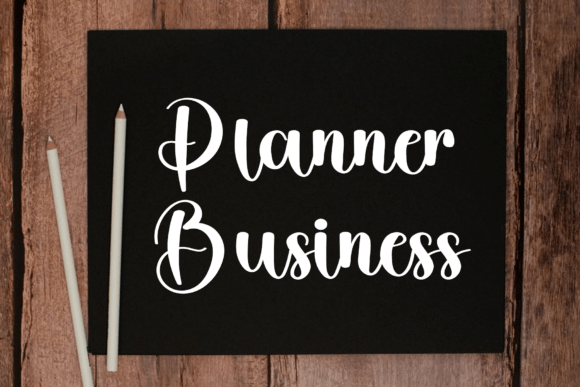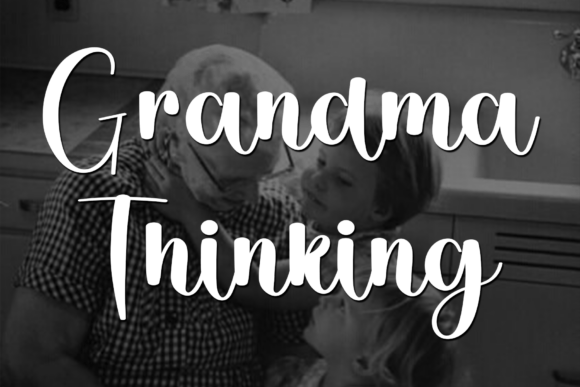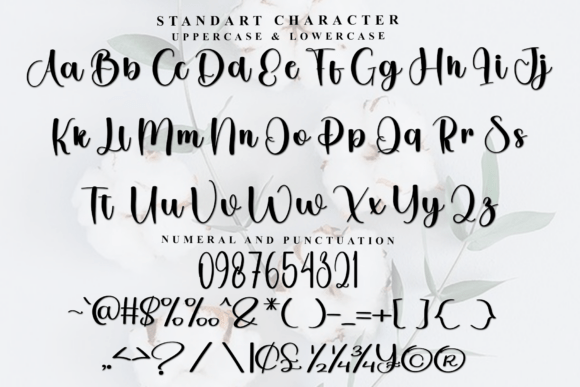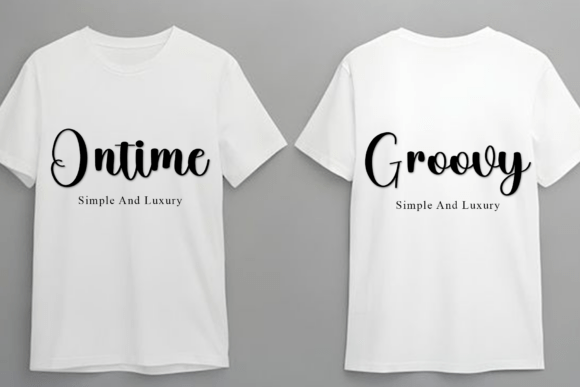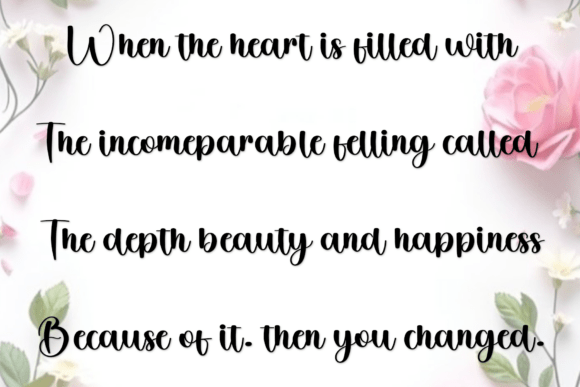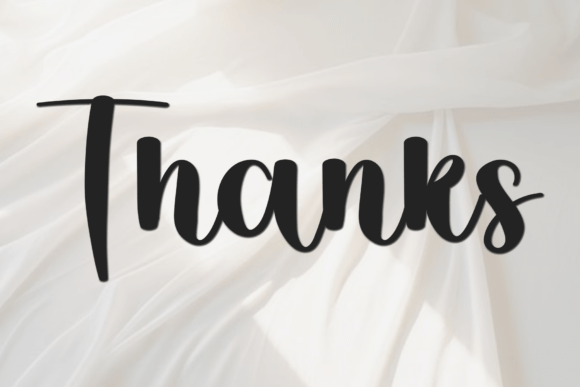
Introduction to Daisy Anything Font
As I sat down to work on my holiday design project, I knew I needed a font that would capture the essence of the season. With a cup of hot cocoa by my side, I began browsing through my design resources, searching for the perfect typeface to add a touch of magic to my words. That’s when I stumbled upon the enchanting Daisy Anything Font – a festive and merry typeface that perfectly embodies the spirit of the holiday season.
With its whimsical flair and decorative elements, the Daisy Anything Font is a game-changer for designers who want to add a personal touch to their creative projects. Whether you’re working on a greeting card, gift tag, or holiday-themed project, this font brings a cheerful and nostalgic ambiance to your words, making it a valuable addition to any design resource.
- High-quality design resource ideal for creative projects, offering a unique and playful touch.
- Designed with a modern aesthetic, making it suitable for a variety of creative projects, from digital art to print materials.
Honest Review: Daisy Anything Font
I recently stumbled upon the Daisy Anything Font while searching for a unique design resource for a creative project. After giving it a try, I’m excited to share my honest thoughts on this font.
What works well: ✨ The Daisy Anything Font is a high-quality, versatile font that can be easily downloaded for free. Its transparent background makes it perfect for adding text overlays on top of images or videos. I love how it adds a playful touch to my designs without being too overwhelming. The font’s creative and whimsical feel makes it ideal for branding, advertising, and social media graphics.
Overall, I’m impressed with the Daisy Anything Font’s potential for creative projects. With its high-quality design and versatility, it’s a great addition to any designer’s toolkit. Just be aware of the limitations, and you’ll be all set for a beautiful design.
Daisy Anything Font
To get the most out of the Daisy Anything Font, experiment with different font sizes, colors, and styles. You can also use the font in combination with other design elements to create a unique and eye-catching design.
The Daisy Anything Font is perfect for a variety of creative projects, including graphics, logos, and social media posts. Its high-quality design and transparent background make it a great choice for any project that requires a professional look.